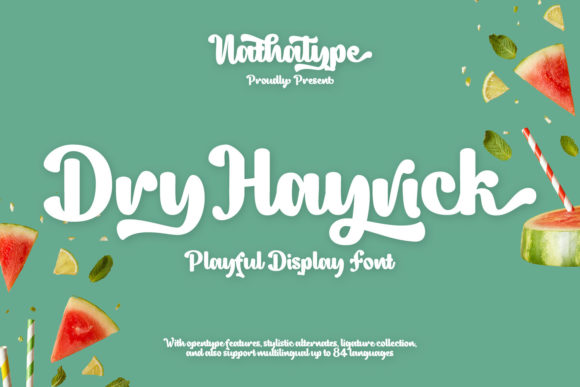
Get ready to fall head over heels for Dry Hayrick, the crème de la crème of display fonts. Crafted with meticulous attention to detail by the renowned nathatype, this font is an absolute masterpiece that will leave you breathless.
Step into a world of romance and charm with Dry Hayrick, the font that captures the essence of love and longing. Its graceful curves and playful swashes dance across the page, evoking a sense of nostalgia and timeless beauty. Whether you're crafting a heartfelt letter, designing a wedding invitation, or creating a stunning social media post, Dry Hayrick will add a touch of elegance and sophistication that is sure to captivate your audience.
Unleash your creativity and let your words flow effortlessly with Dry Hayrick. Its PUA encoding ensures seamless access to every glyph and swash, making it a breeze to add a touch of magic to your projects. Experiment with different combinations to create unique and eye-catching designs that will leave a lasting impression.
Join countless design enthusiasts who have fallen under the spell of Dry Hayrick. Its versatility and charm have made it a top choice for a wide range of projects, from wedding stationery and branding materials to social media graphics and book covers.
Unlock the enchanting world of Dry Hayrick and let your designs blossom with beauty and elegance. Dive into a sea of inspiration and create masterpieces that will captivate hearts and minds. Immerse yourself in the world of Dry Hayrick and let your creativity soar.